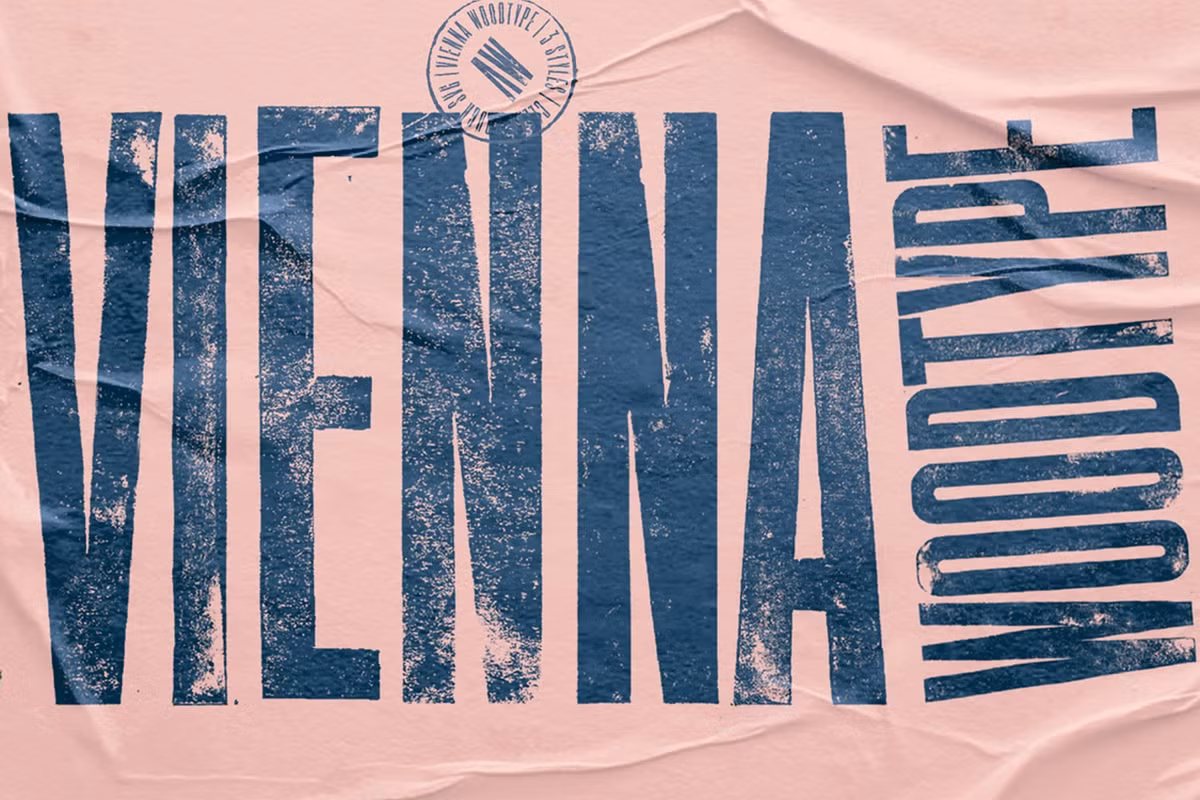
Vienna Woodtype Font Free Download is a vintage-inspired typeface designed to capture the timeless charm of old woodtype printing. Featuring distinctive, bold letterforms with unique texture and character, this font is perfect for creating retro-style logos, posters, branding materials, invitations, and more. Its robust design adds a sense of authenticity and vintage flair to any project, making it ideal for artistic campaigns, nostalgic designs, and creative branding. Whether you're working on a retro brand, a creative project, or a custom invitation, Vienna Woodtype Font Free Download lets you explore its classic style in personal projects before purchasing a commercial license. Add a touch of history and style to your designs with this beautifully crafted woodtype font.